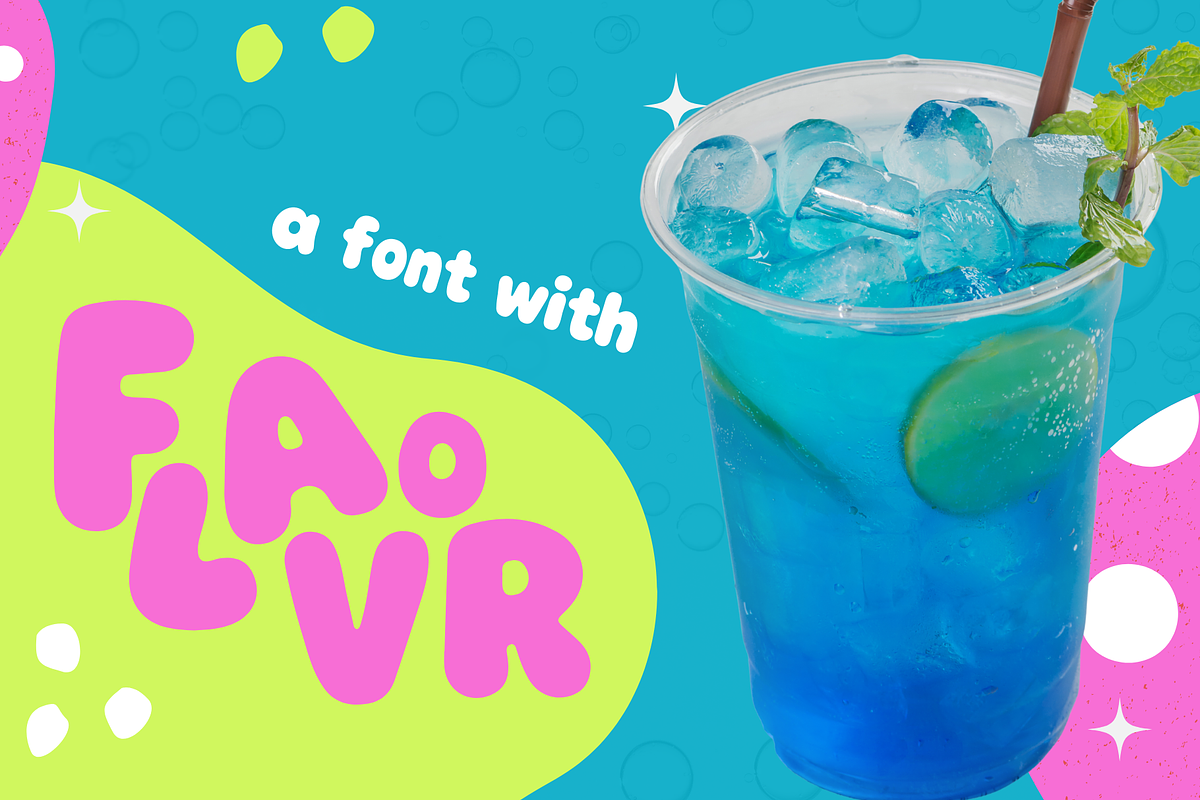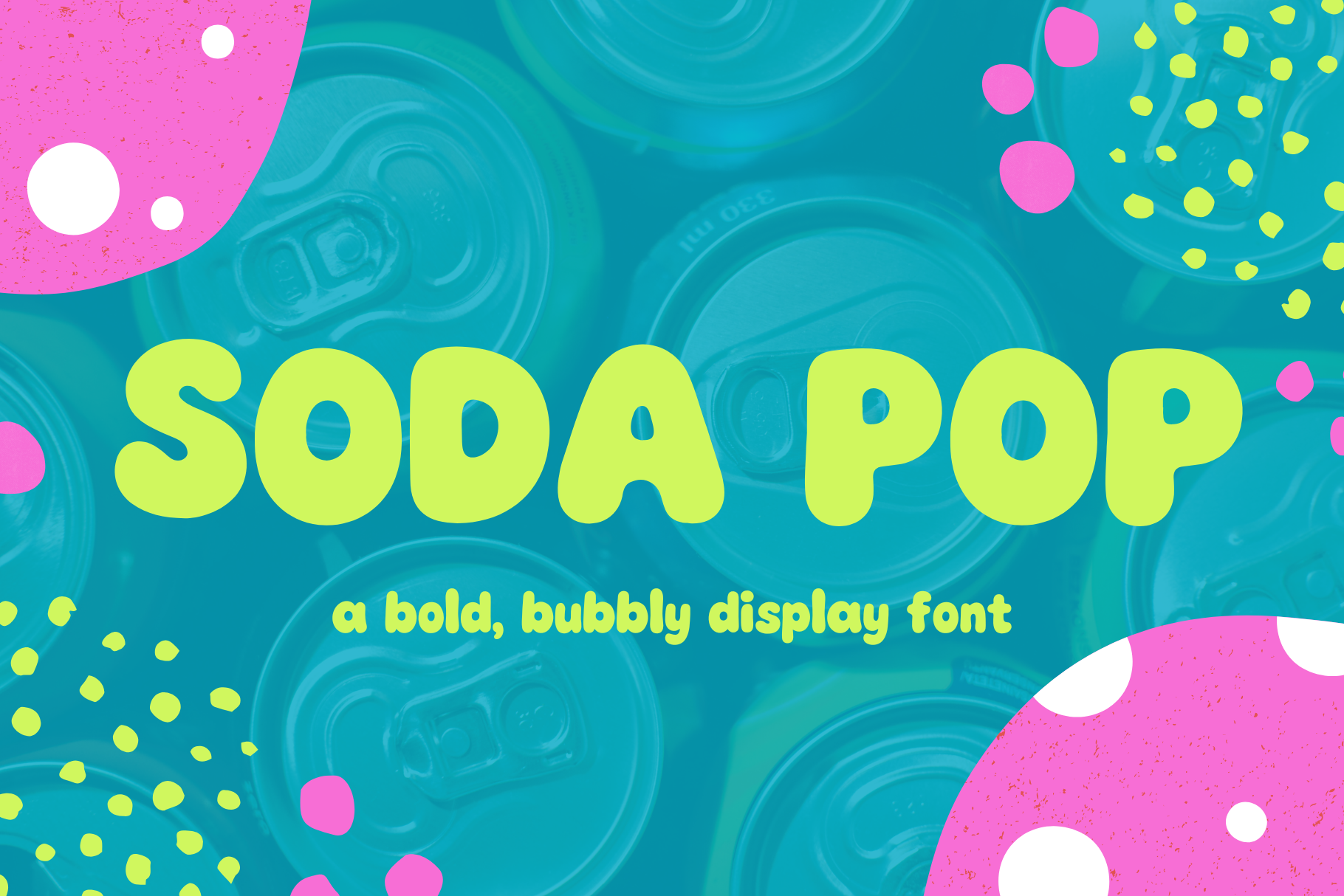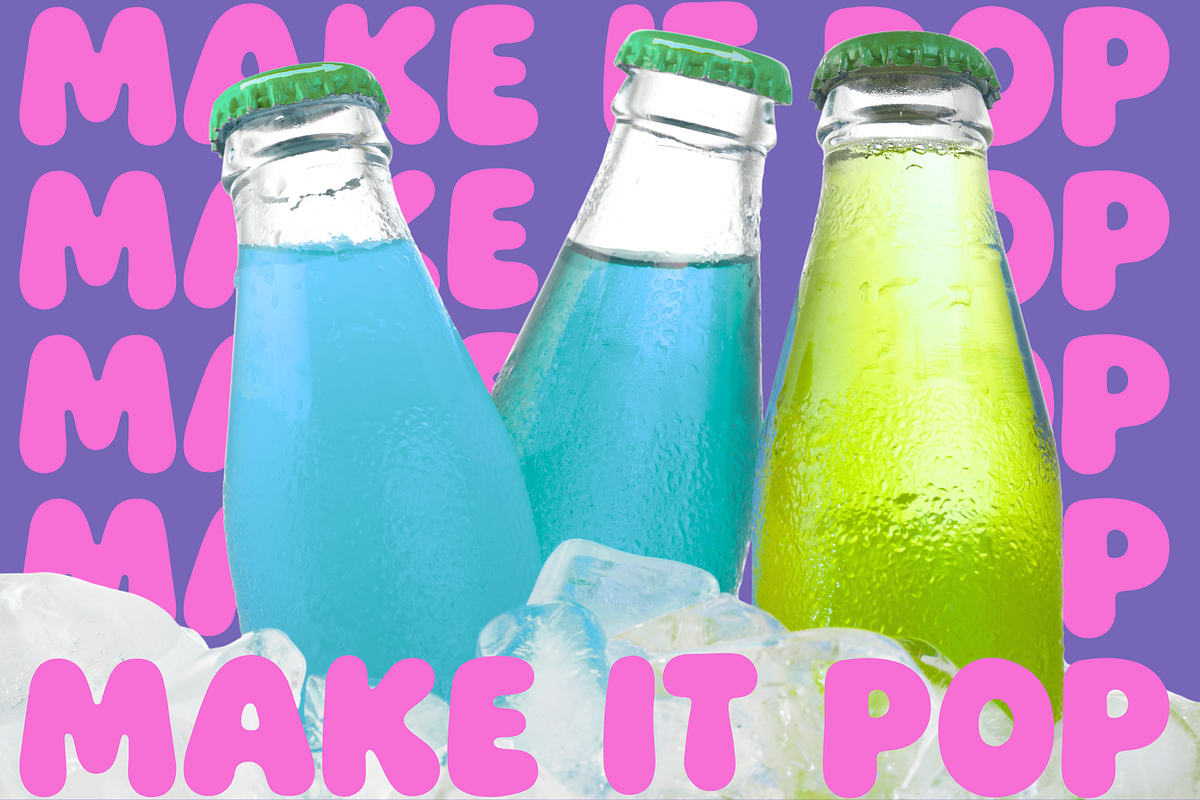
Soda Pop – Playful Bold Font
Soda Pop is a bold, bubbly display font that’s full of personality. With smooth curves, rounded corners, and playful retro flair, Soda Pop is made for standout branding, fun packaging, and creative entrepreneurs who want their designs to pop!
Whether you’re building a cool brand, designing colorful labels, or creating scroll-stopping social content, Soda Pop brings the energy.
Perfect For: ✔ Logos and branding ✔ Packaging and labels ✔ Instagram graphics ✔ Birthday invites ✔ Merch and apparel